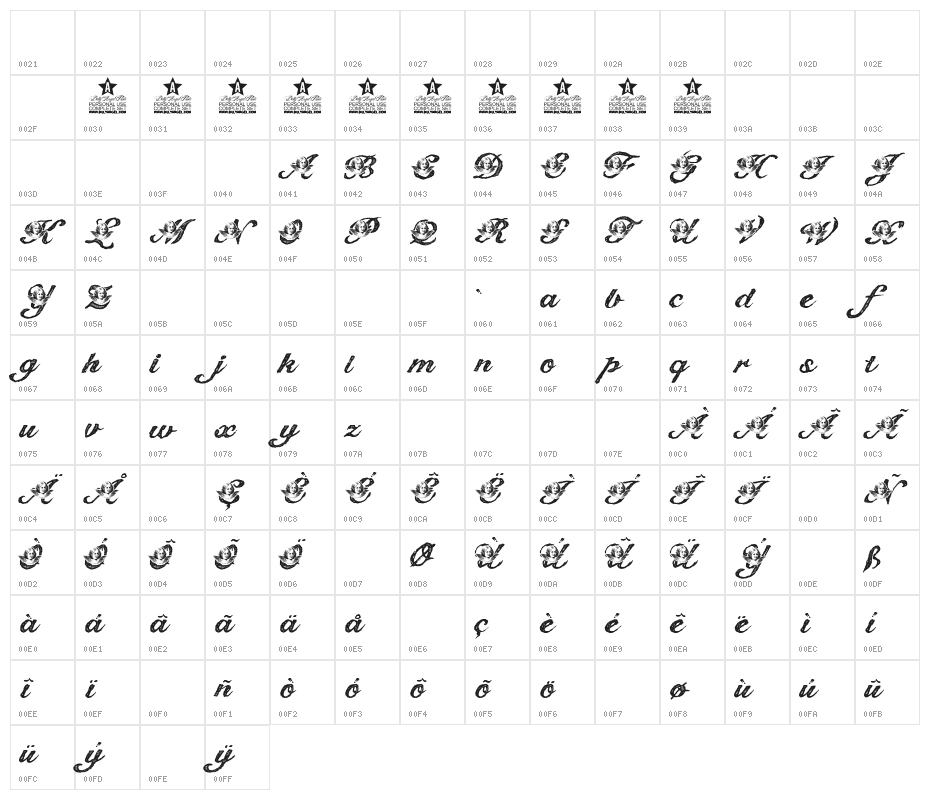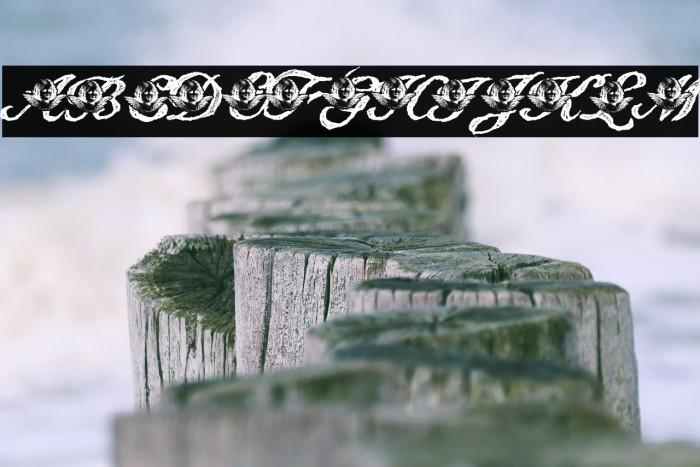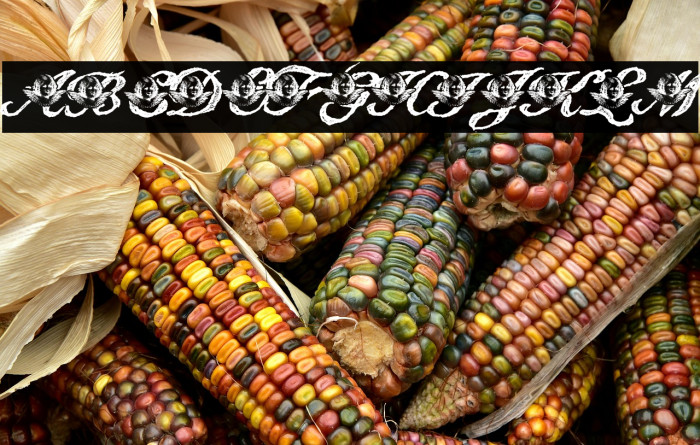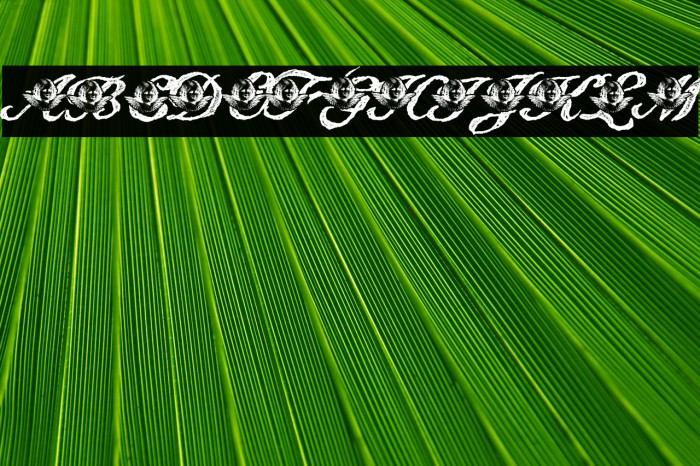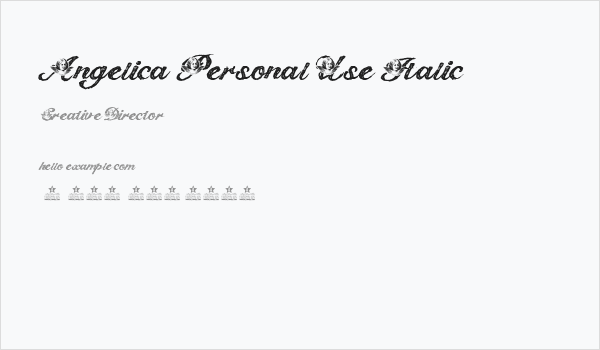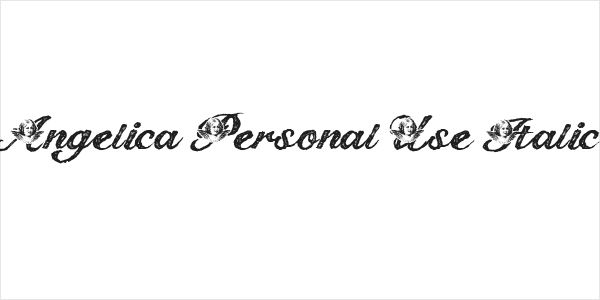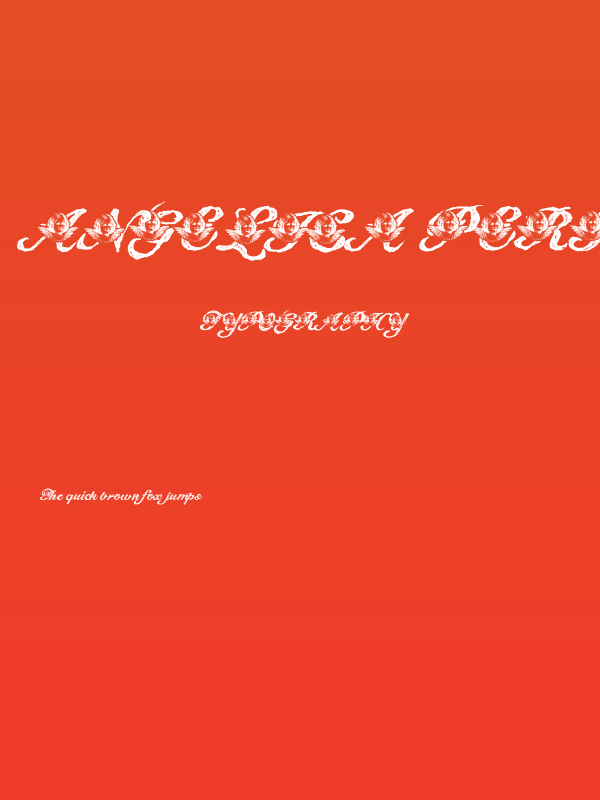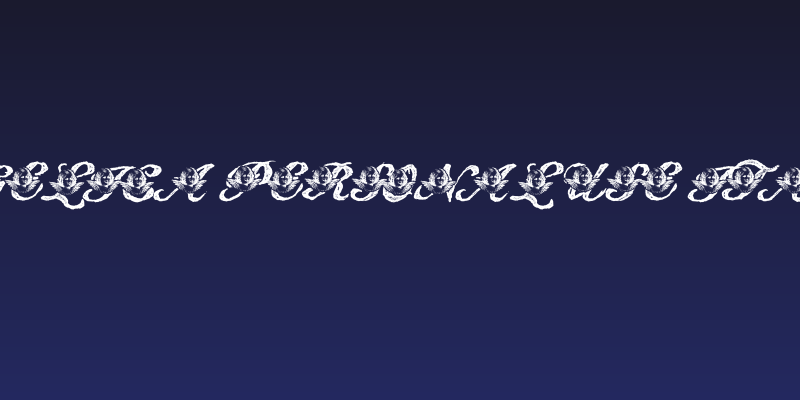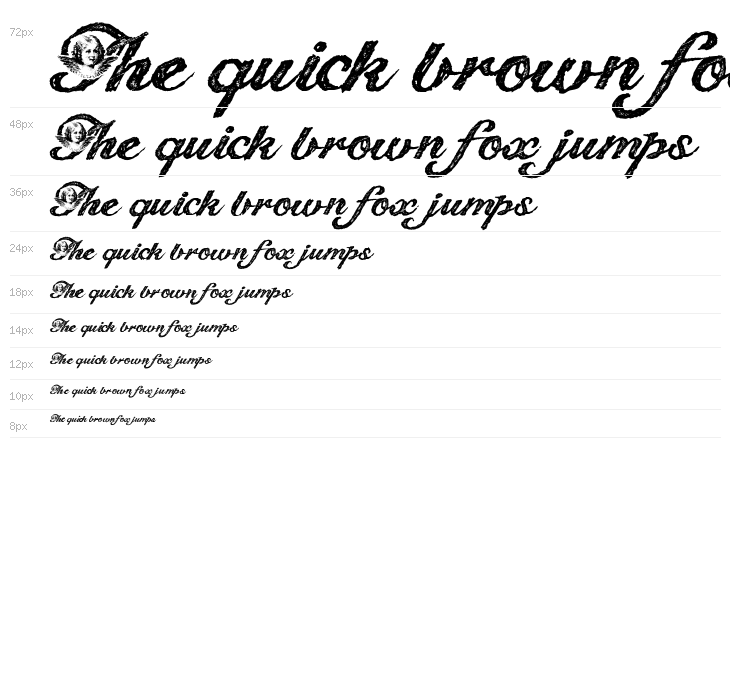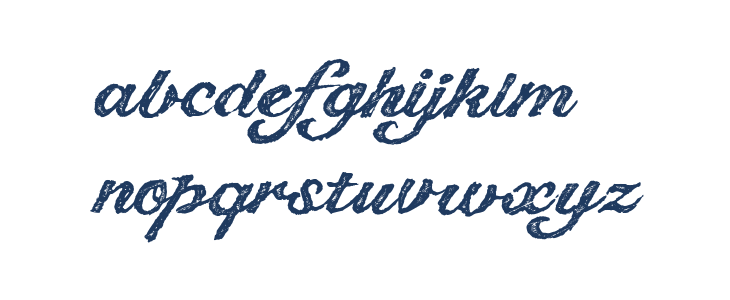
Angelica Personal Use Italic Font
Angelica Personal Use Italic Description
This font features an elegant, flowing script style with a distinct italic slant. The characters are intricately designed with a decorative flair, incorporating ornate loops and flourishes that give it a sophisticated and artistic appearance. The uppercase letters are particularly elaborate, with each letter adorned with unique embellishments that enhance its visual appeal. The lowercase letters maintain a consistent style, offering a harmonious blend of curves and strokes. The font's overall design suggests a hand-drawn quality, making it suitable for projects that require a personal touch. Its intricate details and stylish presentation make it ideal for creative and decorative applications.